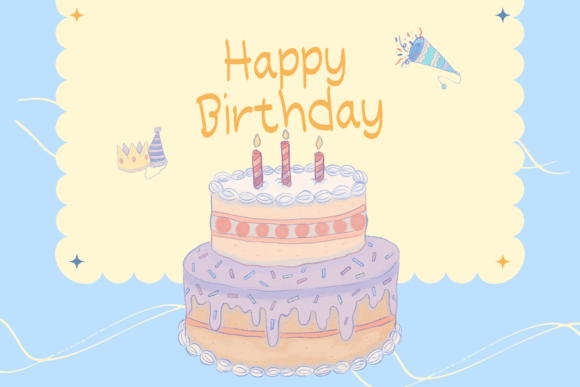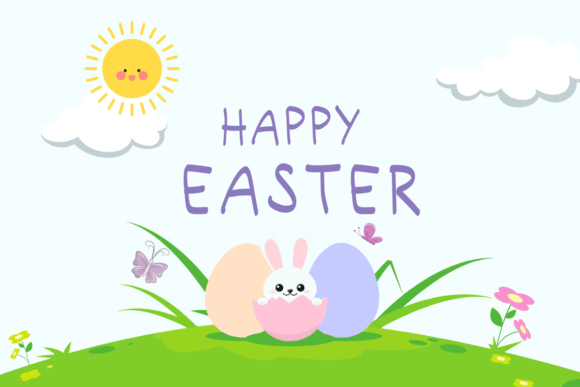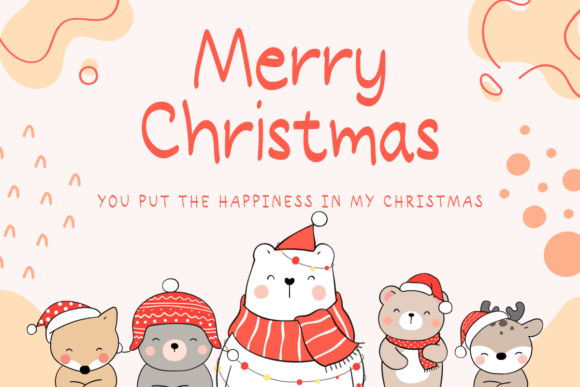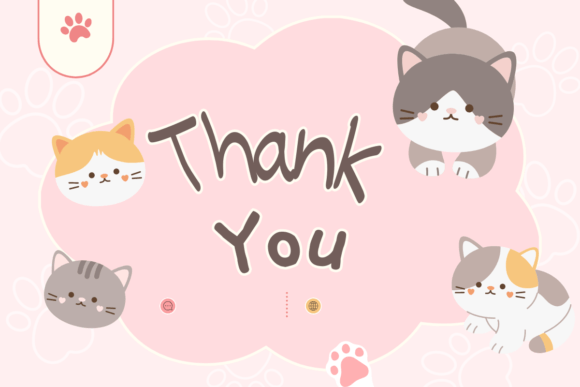
Introducing Delight Font: The Sweet and Friendly Handwritten Display Font
Are you looking for a font that can add a touch of sweetness and friendliness to your designs? Look no further than Delight Font! This beautiful handwritten display font is perfect for crafters, digital designers, and anyone looking to add a fun and playful touch to their work. In this article, we’ll take a closer look at Delight Font, its features, and how you can use it to elevate your designs.
What is Delight Font?
Delight Font is a sweet and friendly handwritten display font that’s designed to bring a smile to your face. Its cute and fun design makes it ideal for a variety of projects, from crafts and digital design to presentations, wedding invitations, cards, and more. Whether you’re a professional designer or a DIY crafter, Delight Font is the perfect choice for anyone looking to add a personal touch to their work.
Features of Delight Font
So, what makes Delight Font so special? Here are just a few of its key features:
- Handwritten design: Delight Font has a beautiful handwritten design that’s both sweet and friendly.
- Cute and fun: This font is perfect for projects that require a playful touch.
- Display font: Delight Font is designed to make a statement, making it perfect for headings, titles, and other display text.
- Versatile: This font can be used for a wide range of projects, from crafts and digital design to presentations and wedding invitations.
Uses for Delight Font
So, how can you use Delight Font in your designs? Here are just a few ideas to get you started:
- Crafts: Delight Font is perfect for crafters who want to add a personal touch to their projects. Use it to create handmade cards, gift tags, and other paper crafts.
- Digital design: This font is also great for digital designers who want to add a playful touch to their work. Use it to create social media graphics, blog headers, and more.
- Presentations: Delight Font can add a fun and engaging touch to your presentations. Use it to create headings, titles, and other display text.
- Wedding invitations: This font is perfect for wedding invitations, save-the-dates, and other wedding stationery.
- Cards: Use Delight Font to create handmade cards for birthdays, holidays, and other special occasions.
Tips for Using Delight Font
Here are a few tips for using Delight Font in your designs:
- Use it sparingly: Delight Font is a display font, so it’s best to use it sparingly. Use it for headings, titles, and other display text, and pair it with a simpler font for body text.
- Experiment with colors: Delight Font looks great in a variety of colors, so don’t be afraid to experiment. Try using it in bright, bold colors or softer, pastel shades.
- Pair it with other fonts: Delight Font can be paired with a variety of other fonts to create a unique and interesting look. Try pairing it with a sans-serif font or a script font.
| Font Name | Delight Font |
Delight Font is a sweet and friendly handwritten display font that’s perfect for crafters, digital designers, and anyone looking to add a fun and playful touch to their work. With its cute and fun design, versatile uses, and easy-to-use features, Delight Font is a great addition to any designer’s toolkit. So why not give it a try and see how it can elevate your designs?
Whether you’re creating handmade crafts, digital designs, or presentations, Delight Font is the perfect choice. Its beautiful handwritten design and playful feel make it ideal for a wide range of projects. So go ahead, get creative, and have fun with Delight Font!